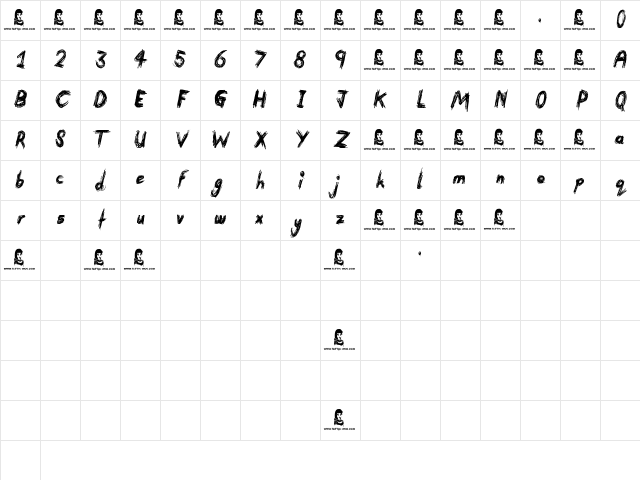
Devastated Regular Free Font
Devastated Regular
Foundry: Jonathan S. Harris
Designer: Jonathan Stephen Harris
Design Context for Devastated
Devastated is a composed and adaptable typeface that performs quietly and consistently across a wide range of design contexts.